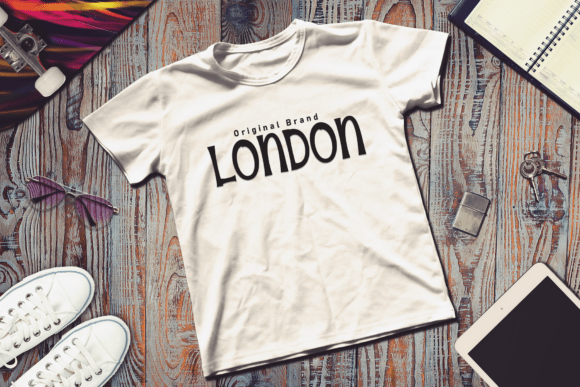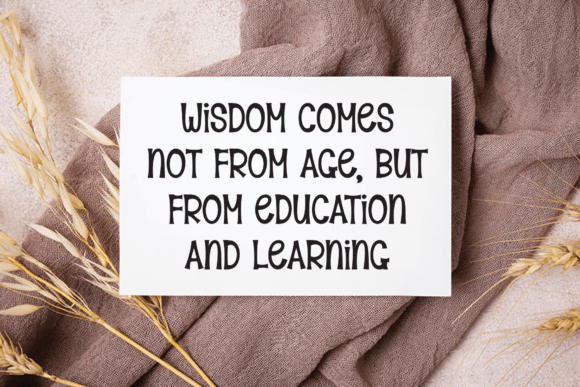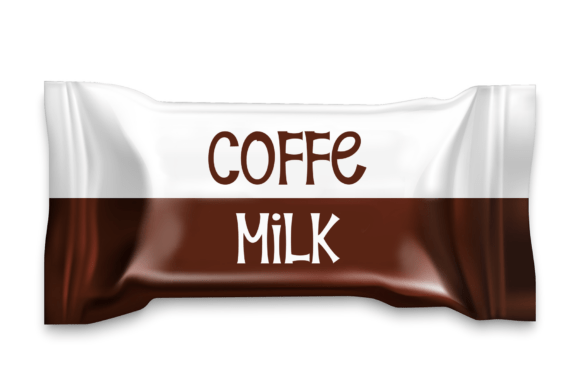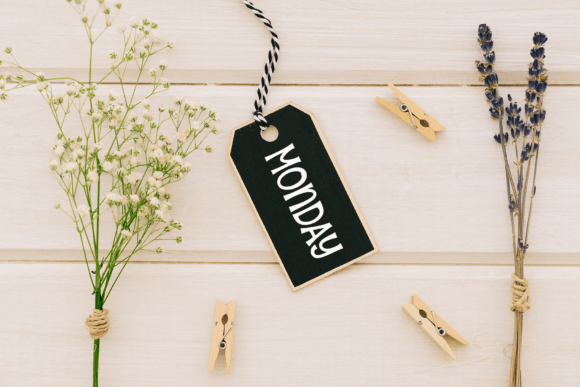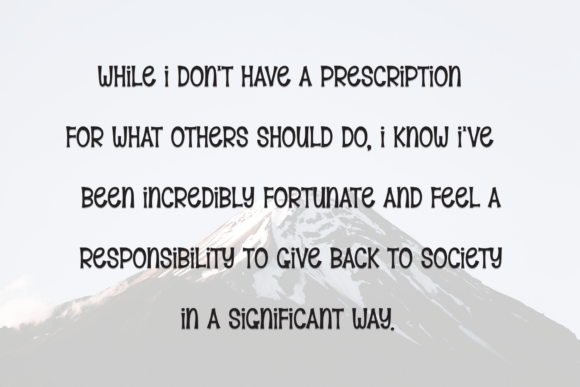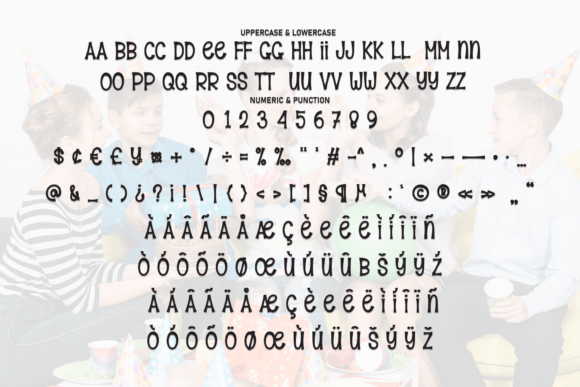
Introducing Birthday Kids Font: The Perfect Blend of Simplicity and Friendliness
Are you a designer or crafter looking for a font that can add a warm and inviting touch to your designs? Look no further than the Birthday Kids Font. This casual and neat display font is designed to combine simplicity with a friendly, approachable vibe, making it perfect for a wide range of design applications.
Clean Lines, Balanced Letterforms, and Subtle Rounded Edges
One of the standout features of the Birthday Kids Font is its clean lines, balanced letterforms, and subtle rounded edges. This font is designed to capture the essence of modern handwritten typography with a polished finish. The clean lines and balanced letterforms ensure that the font is easy to read, while the subtle rounded edges add a touch of warmth and friendliness.
Ideal for Branding, Headlines, Packaging, and Digital Content
The Birthday Kids Font is a versatile font that can be used in a wide range of design applications. It’s ideal for branding, headlines, packaging, and digital content, making it a great addition to any designer’s toolkit. Whether you’re designing a logo, creating a brochure, or crafting a social media post, this font is sure to add a warm and inviting touch to your design.
What Makes Birthday Kids Font So Special?
So, what makes the Birthday Kids Font so special? Here are just a few reasons why designers and crafters love this font:
• Simplicity: The Birthday Kids Font is a simple, yet elegant font that’s easy to read and understand.
• Friendliness: The font’s friendly, approachable vibe makes it perfect for designs that need to connect with the audience on a personal level.
• Versatility: The font’s clean lines and balanced letterforms make it suitable for a wide range of design applications.
• Polished Finish: The font’s subtle rounded edges and polished finish give it a professional, high-end look.
How to Use Birthday Kids Font in Your Designs
Using the Birthday Kids Font in your designs is easy. Here are a few tips to get you started:
• Pair it with other fonts: The Birthday Kids Font works well with other fonts, so don’t be afraid to experiment with different combinations.
• Use it for headlines: The font’s bold, yet friendly style makes it perfect for headlines and titles.
• Add some color: The font’s clean lines and balanced letterforms make it easy to add color and create a visually appealing design.
In conclusion, the Birthday Kids Font is a versatile and elegant font that’s perfect for designers and crafters looking to add a warm and inviting touch to their designs. With its clean lines, balanced letterforms, and subtle rounded edges, this font is sure to become a favorite in your design toolkit. So why wait? Download the Birthday Kids Font today and start creating beautiful, professional-looking designs that connect with your audience on a personal level.
What is the Birthday Kids Font?
The Birthday Kids Font is a casual and neat display font designed for use in a wide range of design applications.